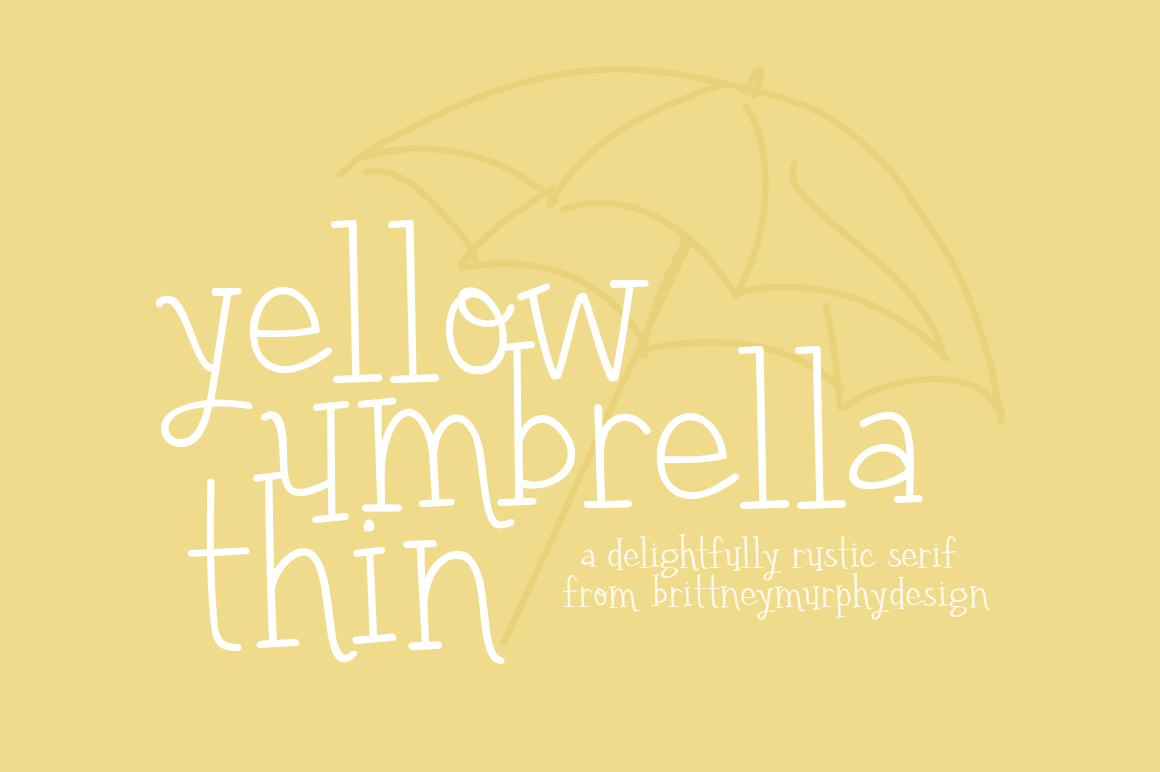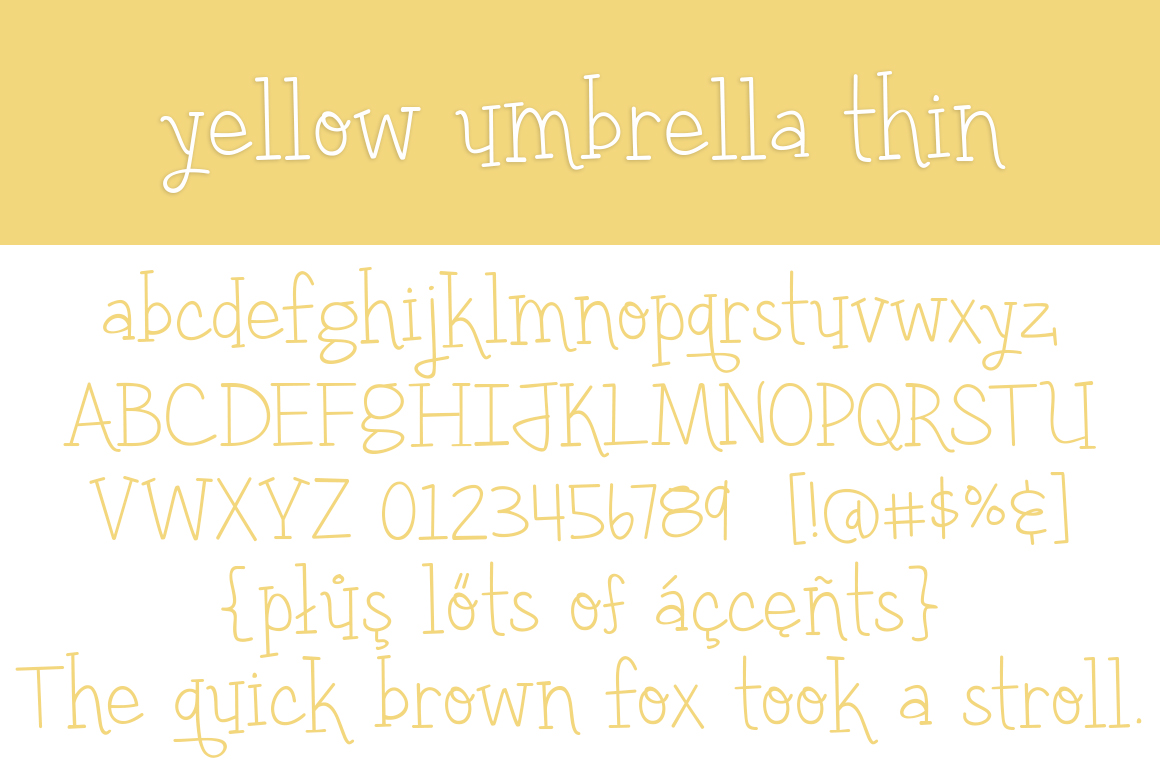
HomeScript FontsYellow Umbrella Thin Font Script Fonts Yellow Umbrella Thin Font FacebookXPinterestWhatsApp Yellow Umbrella Thin Font Poster 2 About Yellow Umbrella Thin Font Yellow Umbrella Thin is a hand-drawn serif. Give a lighthearted rustic look to your crafts and designs! DOWNLOAD NOW People also explored Sandstone Can Cooler Mockup Australia Font Bloomdings Font Hello Daisy Font Diva Devoted Font Watermelon Font Designer Signature Font Soul and Heaven Font Vasaggy Font 300 0 TagsYellow Umbrella Thin Font Previous articleLove and Sunshine FontNext articleYellow Umbrella Font LEAVE A REPLY Cancel reply Comment: Please enter your comment! Name:* Please enter your name here Email:* You have entered an incorrect email address! Please enter your email address here Website: Save my name, email, and website in this browser for the next time I comment. Personal Use Free Mariyam Personal Use Free Read more about this font Comic Caps Personal Use Free Read more about this font Sweet Someday Personal Use Free Read more about this font Boldace Personal Use Free Read more about this font BLOG Fonts That Capture the Spirit of New York City New York City is more than just a place—it’s an experience, a rhythm, a visual language... How to Cut Any Font on Cricut: Convert a Font to SVG (Free) 5 Fonts That Will Dominate Design Trends in 2026 Top 10 Handwritten Fonts That Elevate Your Designs